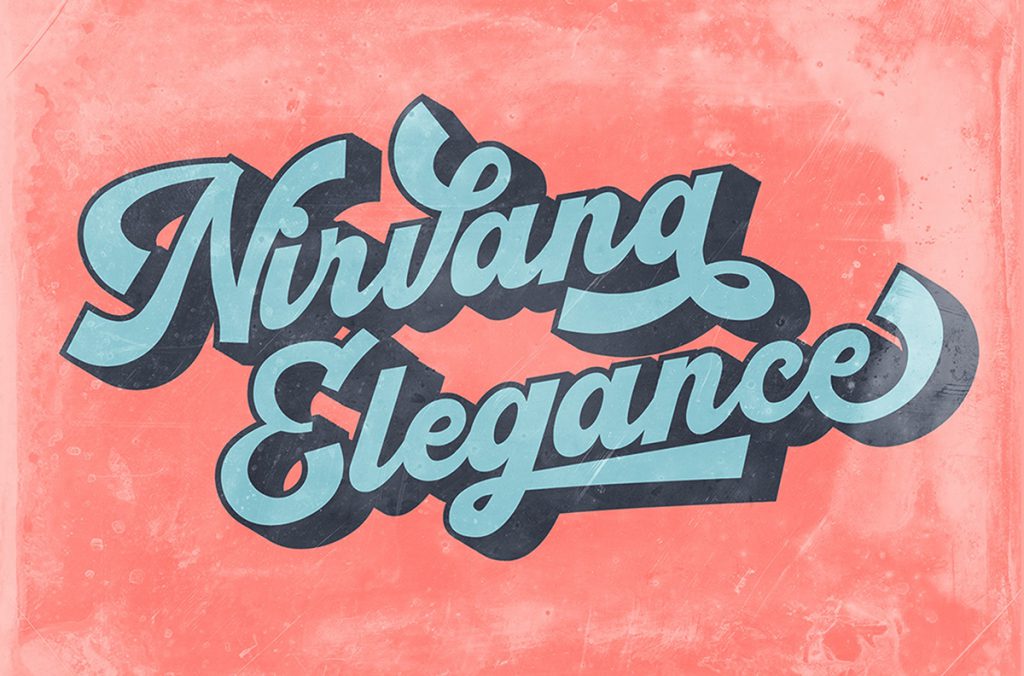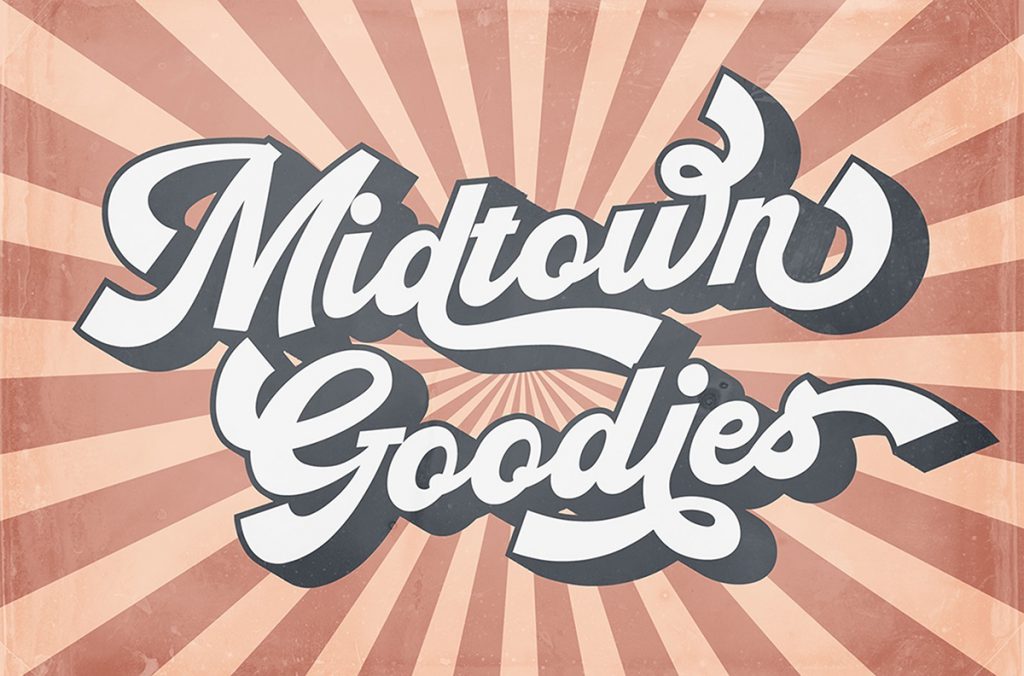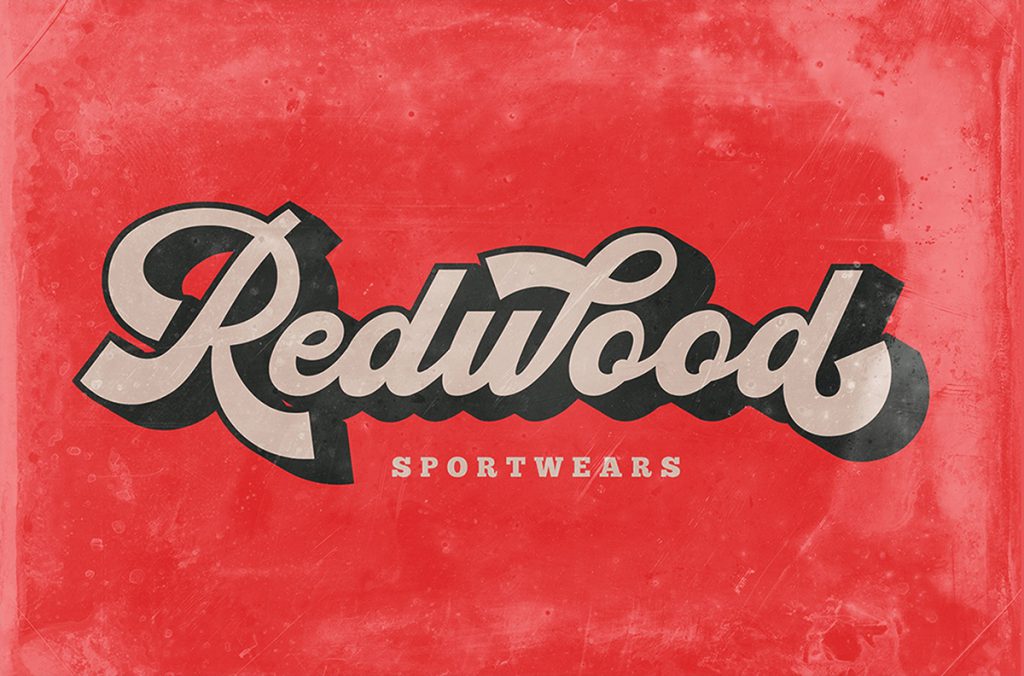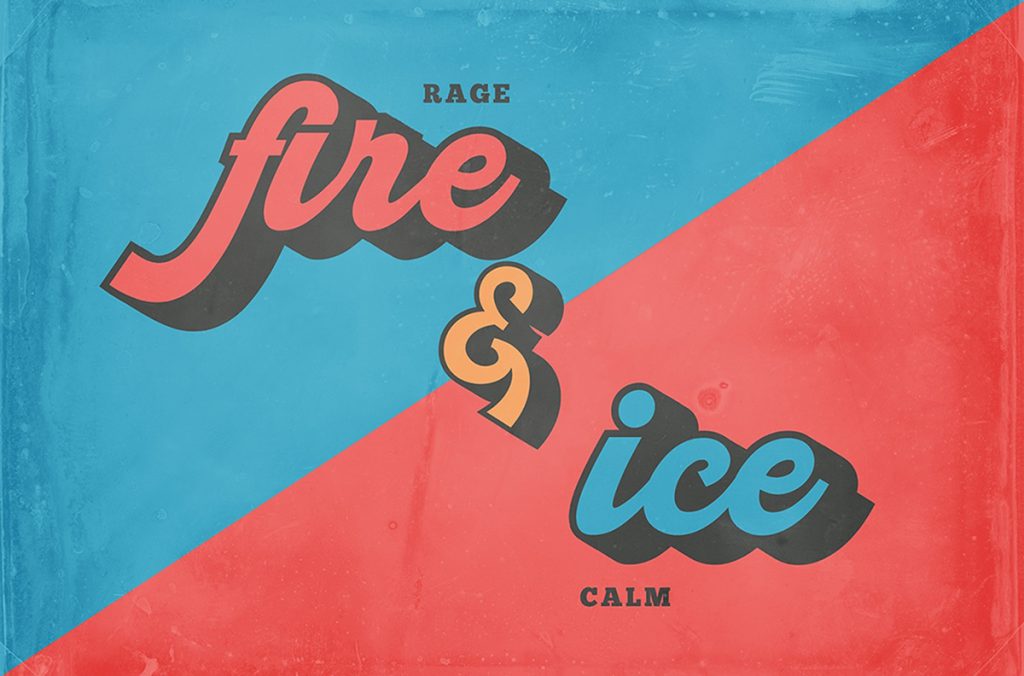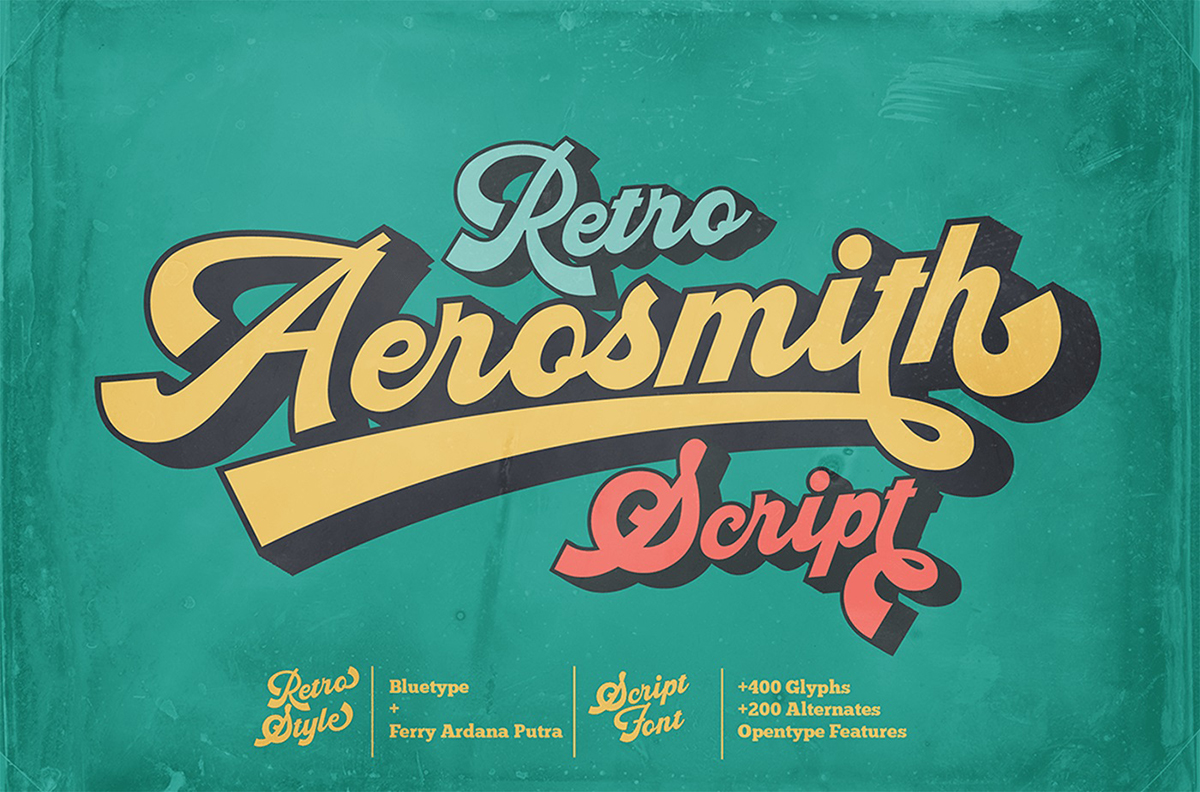
Aerosmith Retro Script Typeface is another our bold script typeface. It’s the three musketeers! Use this typeface and you will make a retro design with ease! Combined your design with hundreds of stylistic alternates and elegant swashes which is included in this typeface, this retro typeface is really perfect for logo design, t-shirt, vintage and retro badge, vintage quotes, branding, packaging, quote etc.